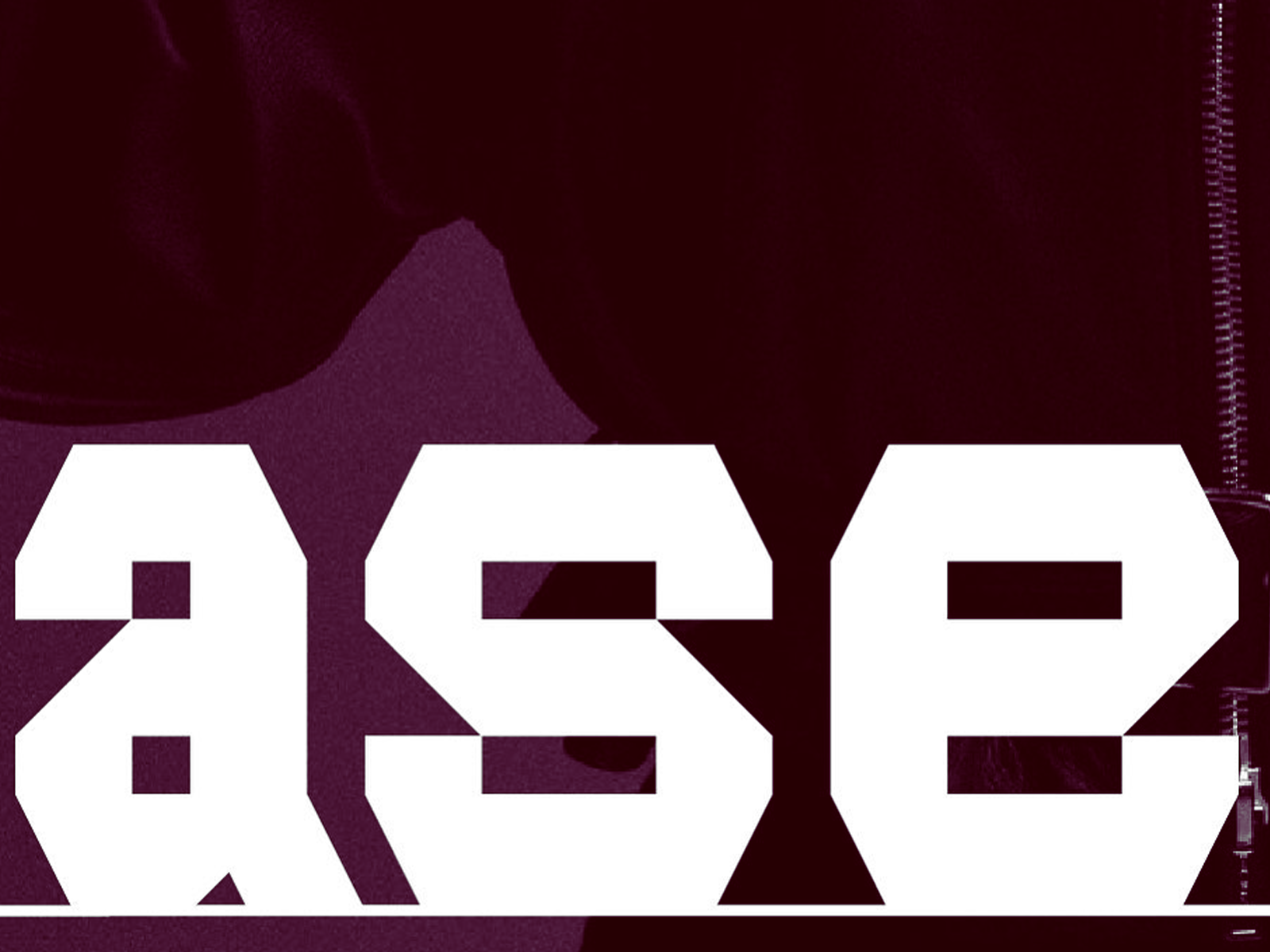
Bold Geometric Typeface Design
A close-up of a bold and modern geometric typeface, possibly part of a poster, album cover, or digital artwork. The high contrast between the white text and deep-colored background enhances readability while maintaining a strong, impactful design aesthetic.